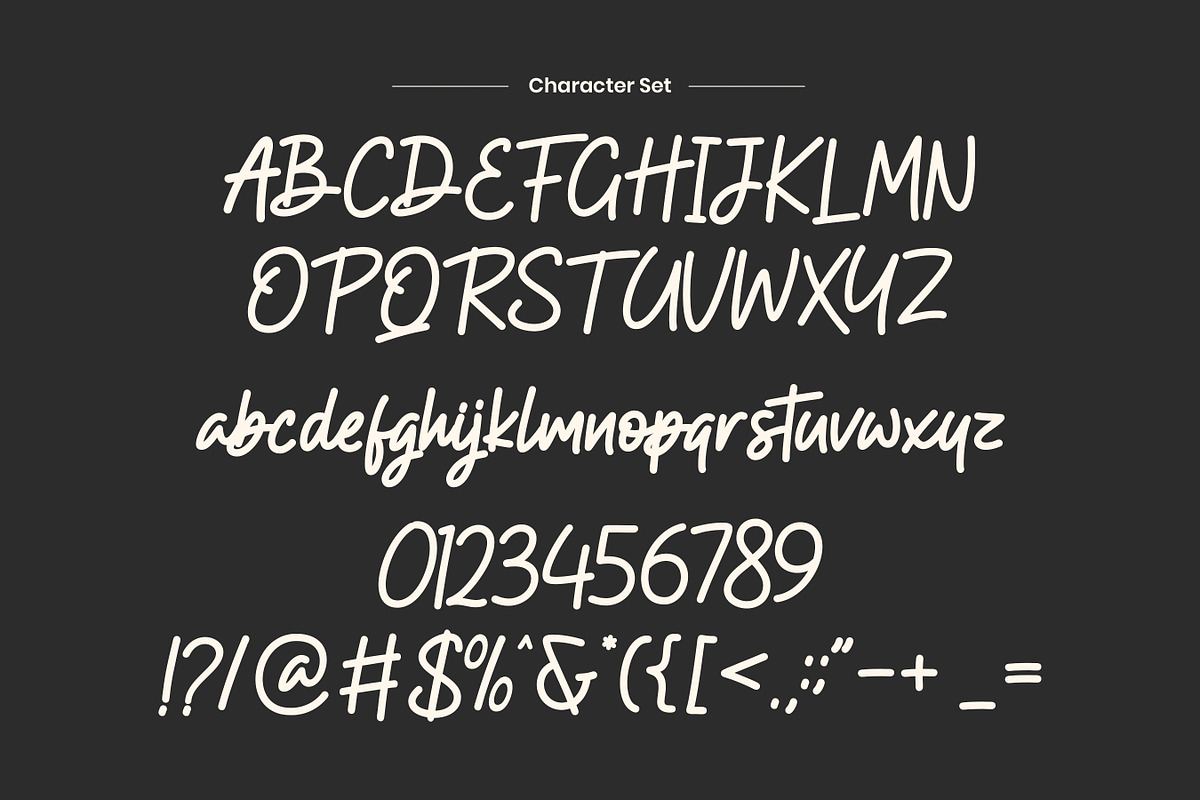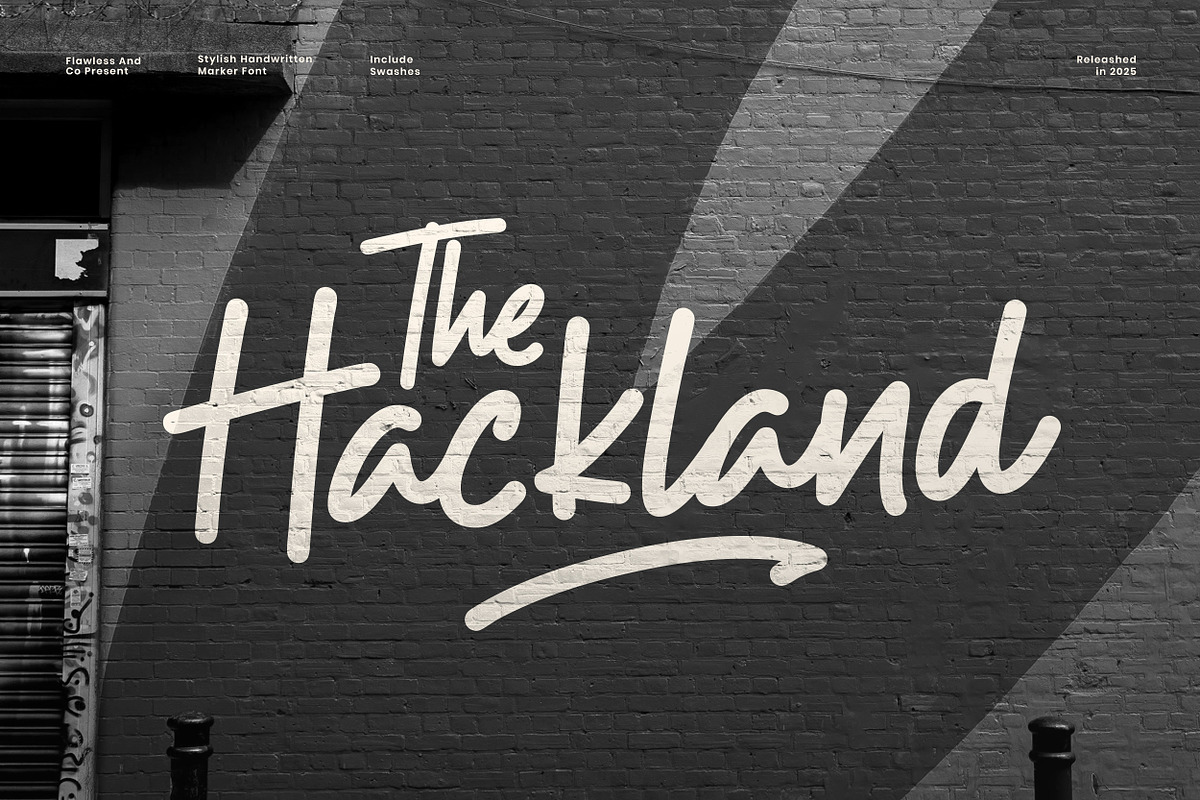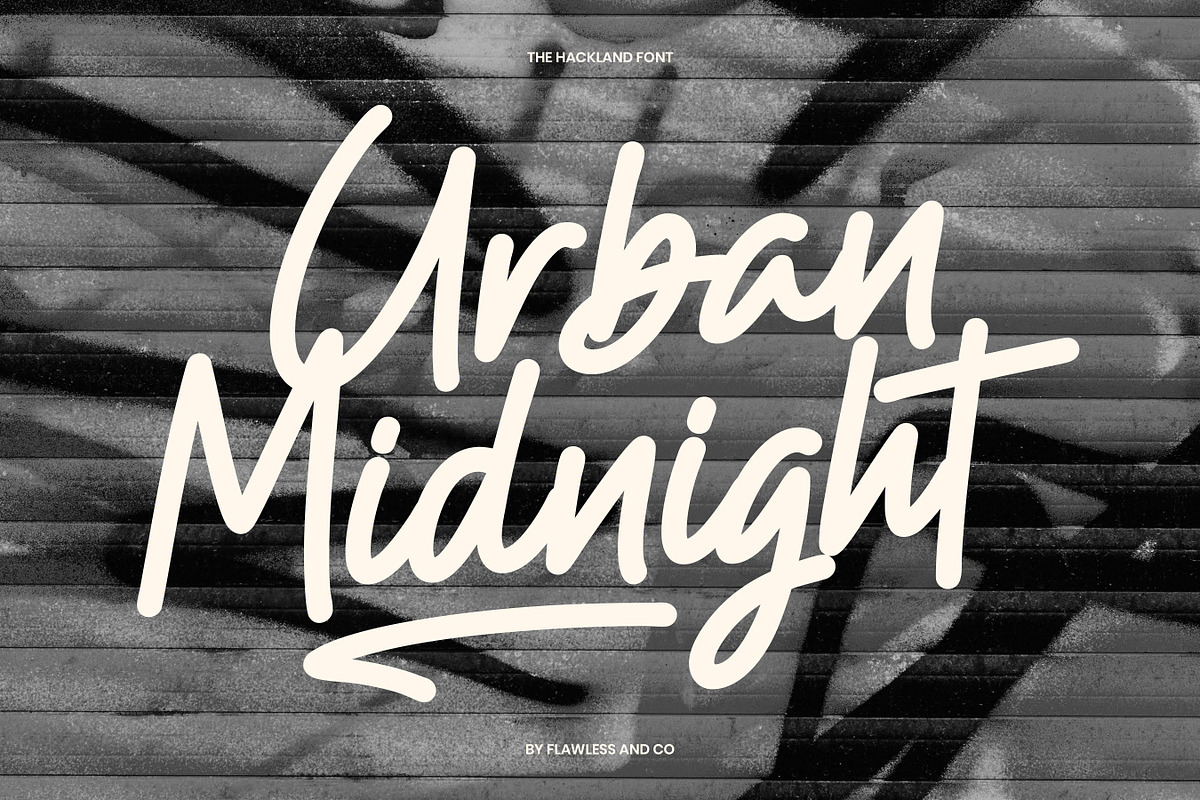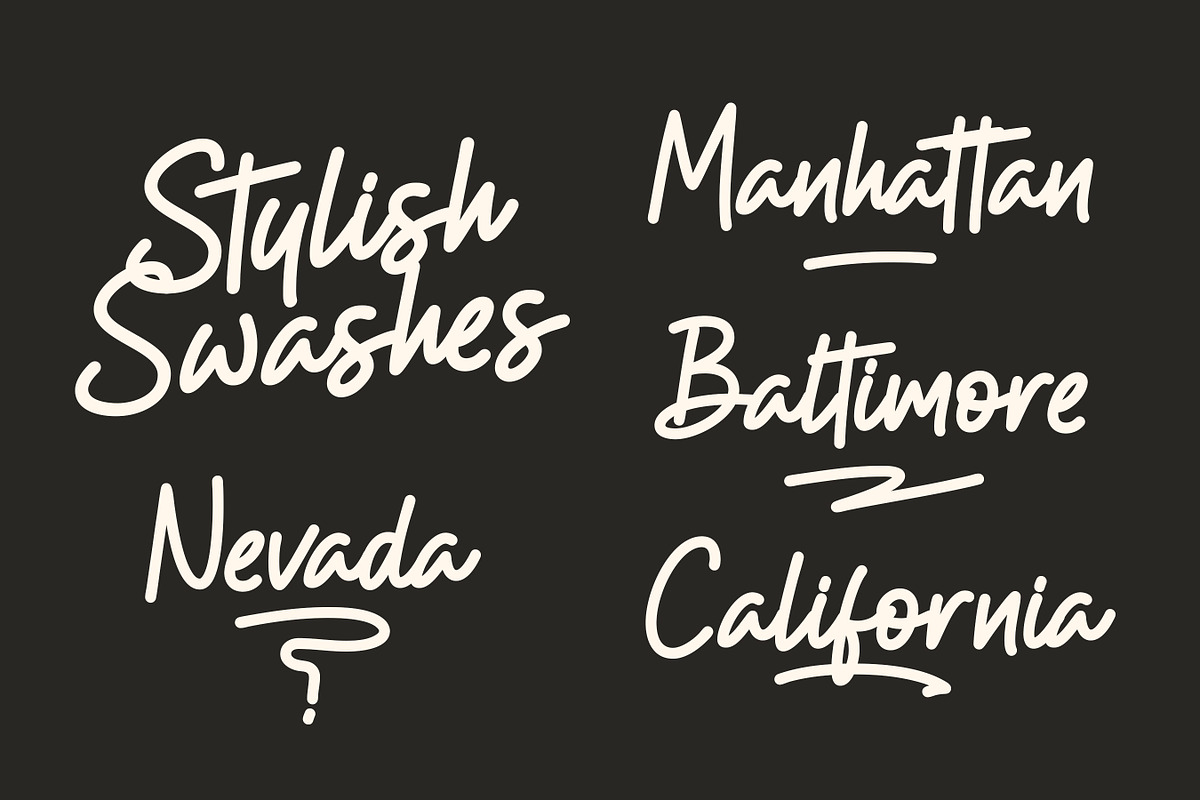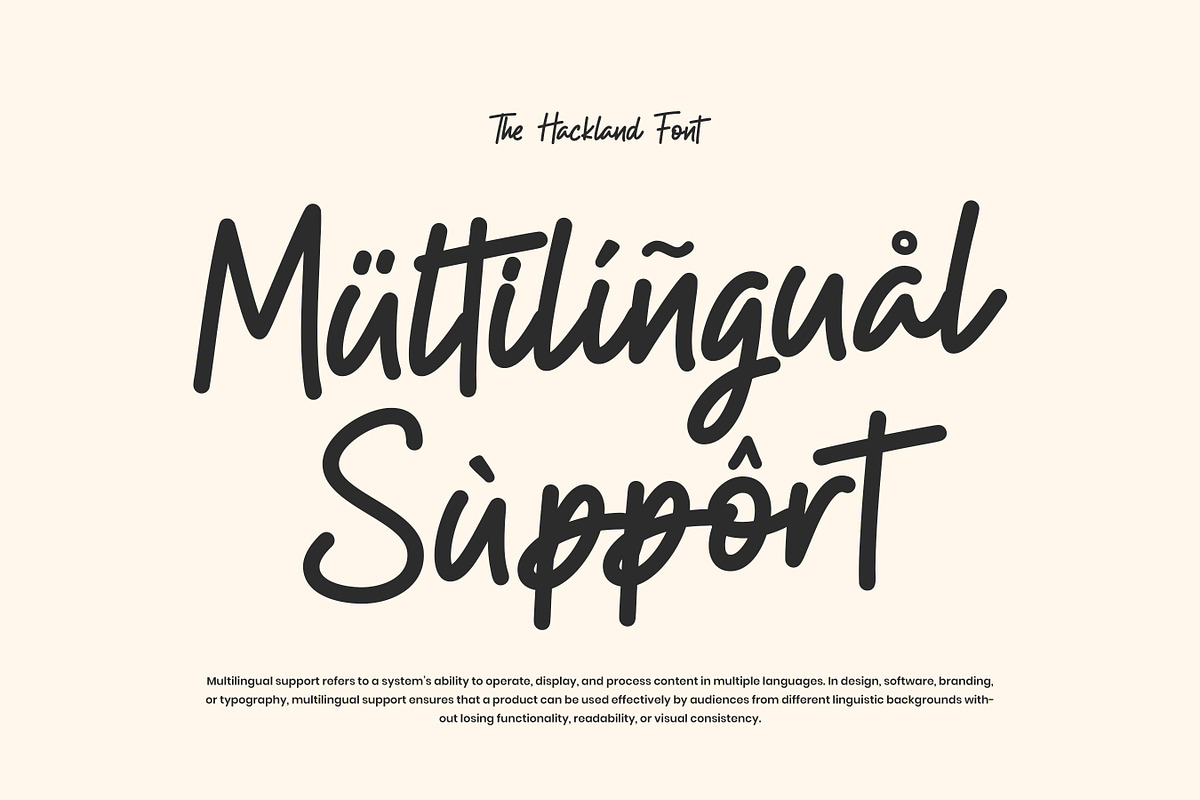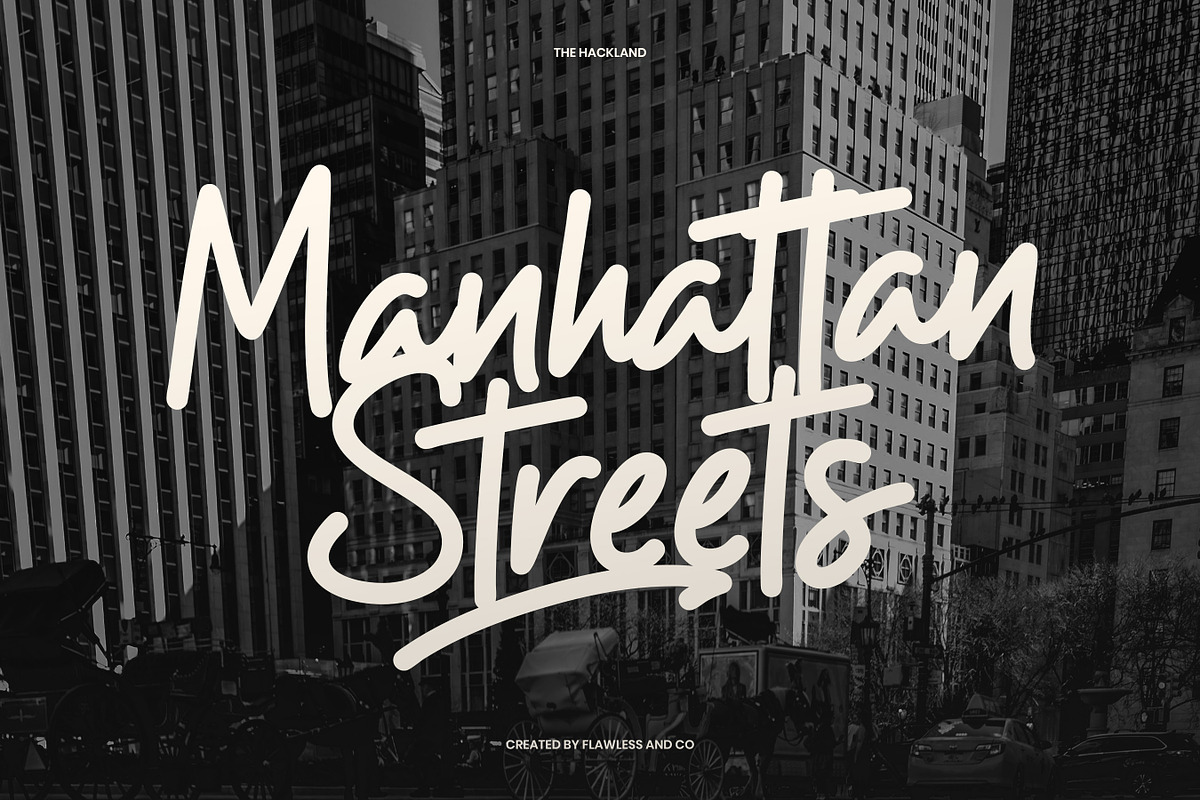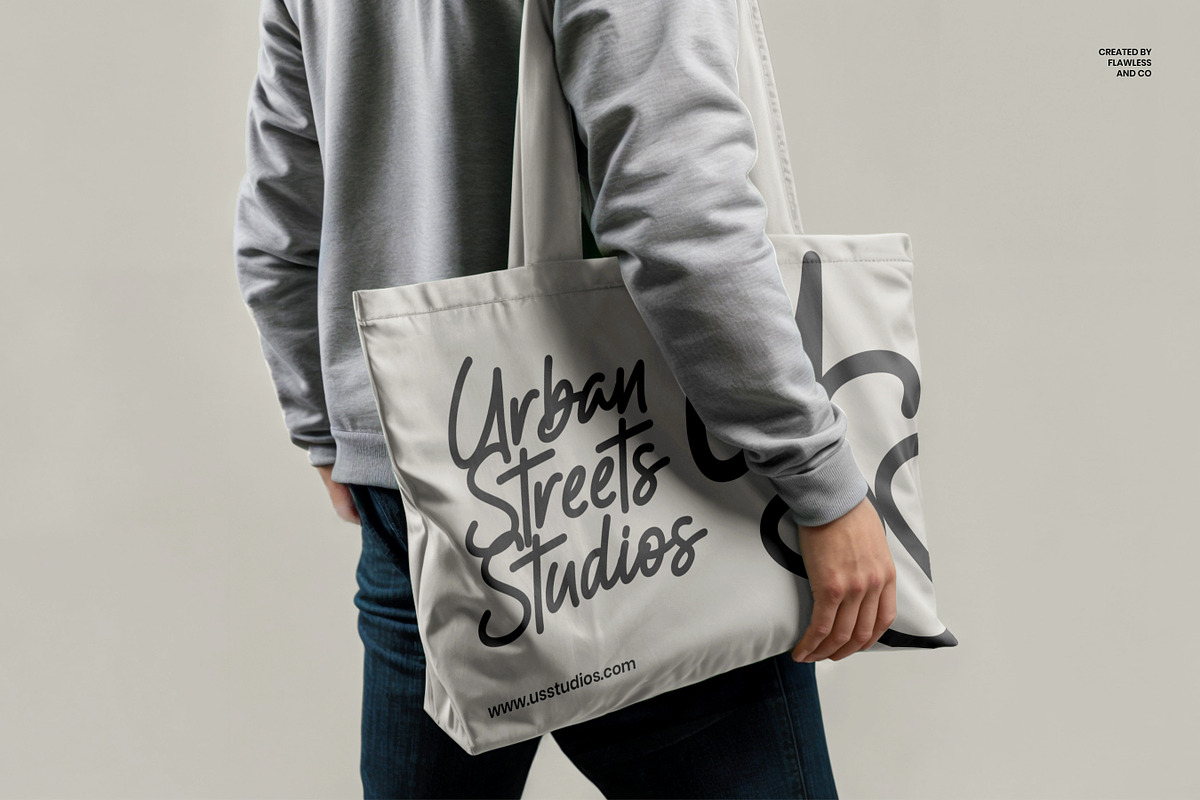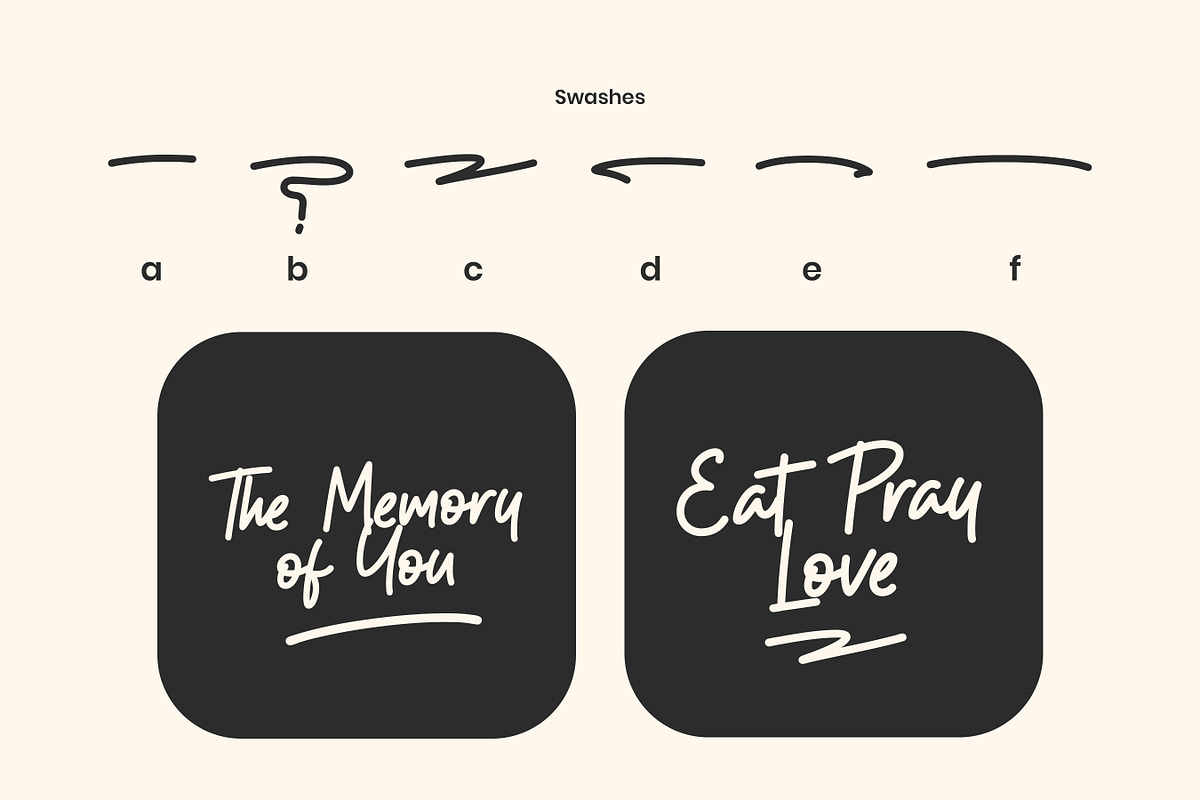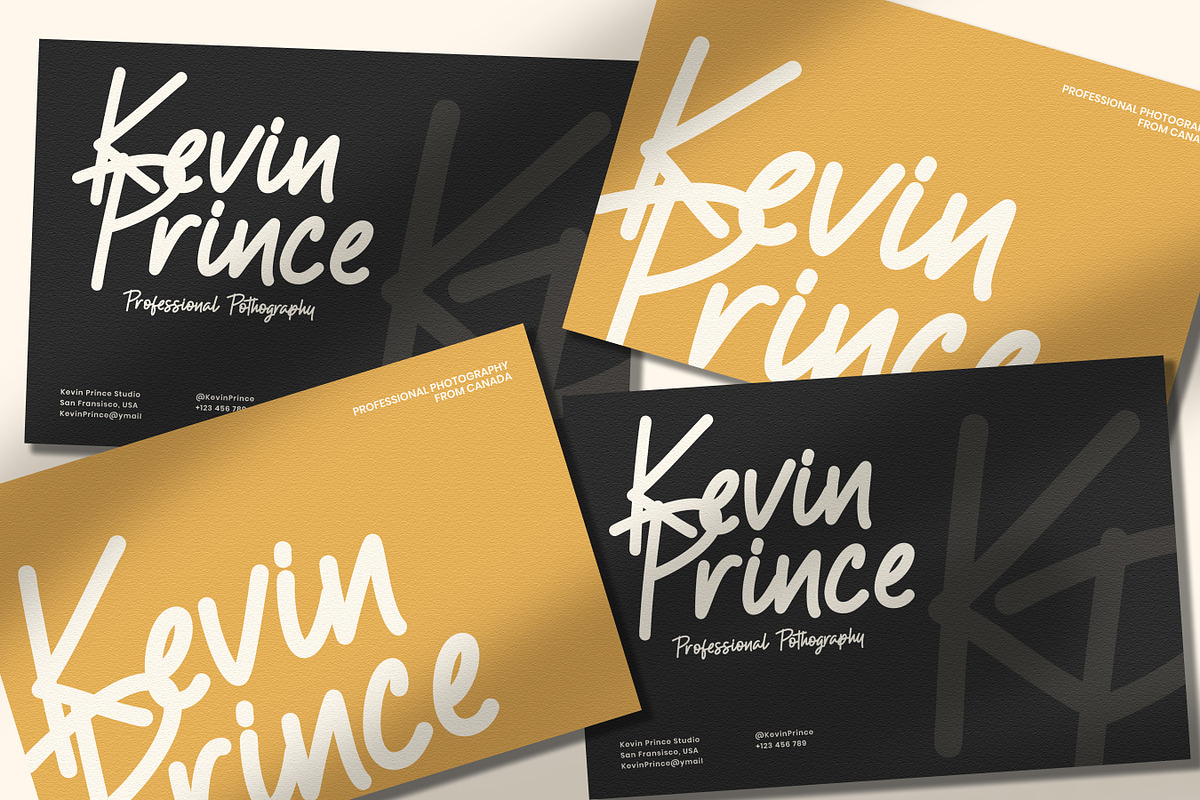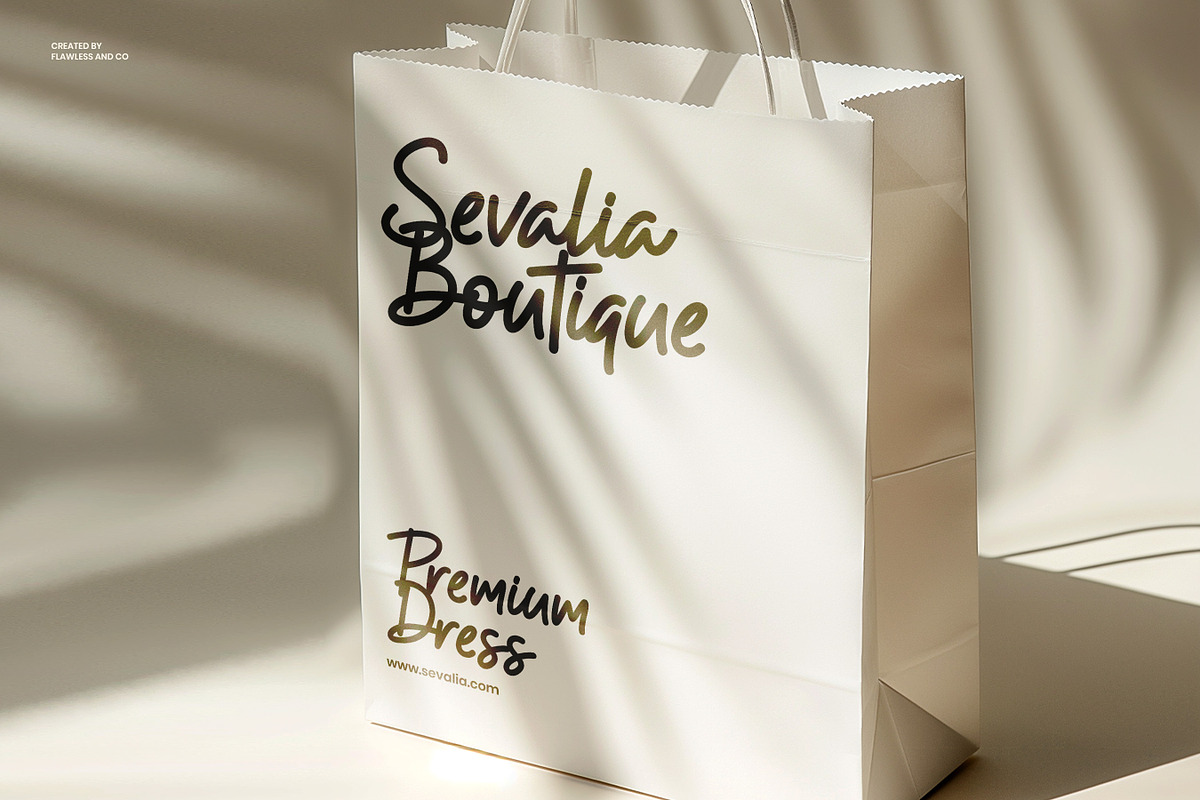
The Hackland - Handwritten Marker Font
The Hackland is a handwritten marker font with a bold, natural, and expressive character. Inspired by authentic hand-drawn strokes, this font delivers a casual yet confident feel that brings personality and energy to any design. With its organic lines and smooth marker texture, The Hackland feels raw, creative, and dynamic.
Who Should Use The Hackland?
The Hackland is ideal for designers, illustrators, content creators, and brands who want a handwritten font that feels personal, bold, and full of character.
Why Choose The Hackland?
The Hackland stands out with its natural marker strokes and stylish handwritten flow. It adds authenticity and personality while maintaining strong visual impact, making your designs feel unique and memorable.
Suitable for:
- Branding and logo design
- Streetwear and apparel
- Posters and flyers
- Social media content
- Packaging design
- Quotes and typography art
- Merchandise and stickers
- Creative advertising projects